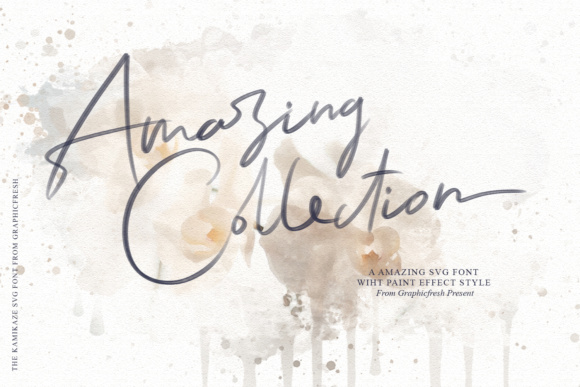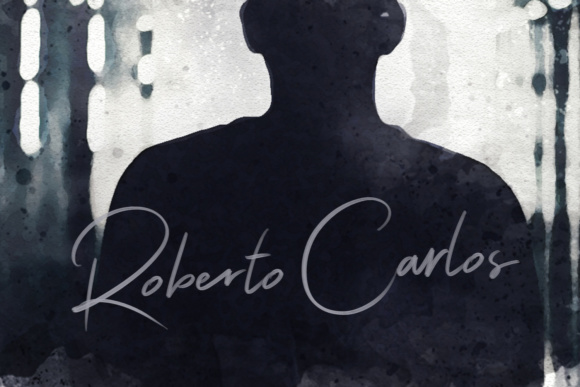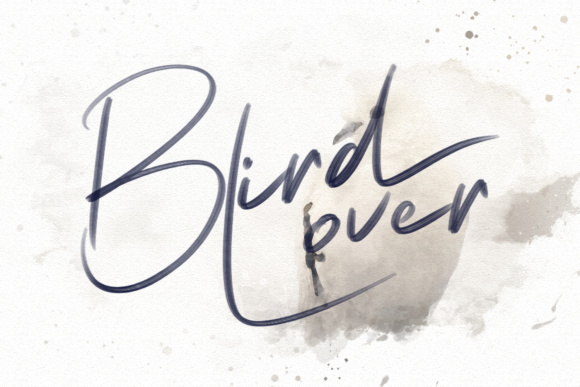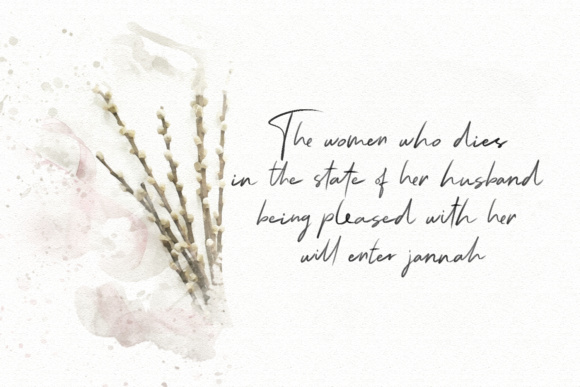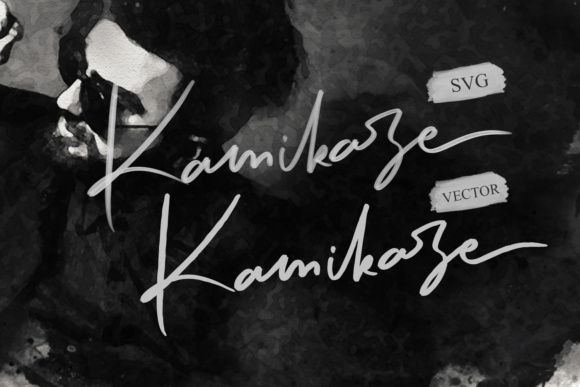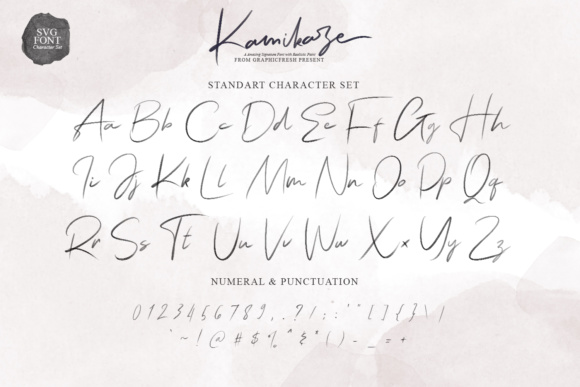
Introduction to Kamikaze Font Font
Fonts play a crucial role in design, and the Kamikaze Font font is a typeface that brings both character and versatility to any project. Whether you’re working on a branding project, a website, or a print design, the Kamikaze Font font offers a unique style that can elevate your work.
The Kamikaze is an SVG signature font with a soft touch.
Make a beautiful signature made of stunning paint texture with Kamikaze Note.
The Kamikaze Font font is more than just a typeface – it’s a design tool that helps you communicate your message with style and clarity. Its unique character set and versatile design make it suitable for a wide range of applications, from elegant invitations to bold headlines.
With its carefully crafted letterforms and balanced proportions, the Kamikaze Font font ensures readability and visual appeal across all mediums.
The Kamikaze Font font stands out with its unique design, exceptional readability, and versatility across various design applications.